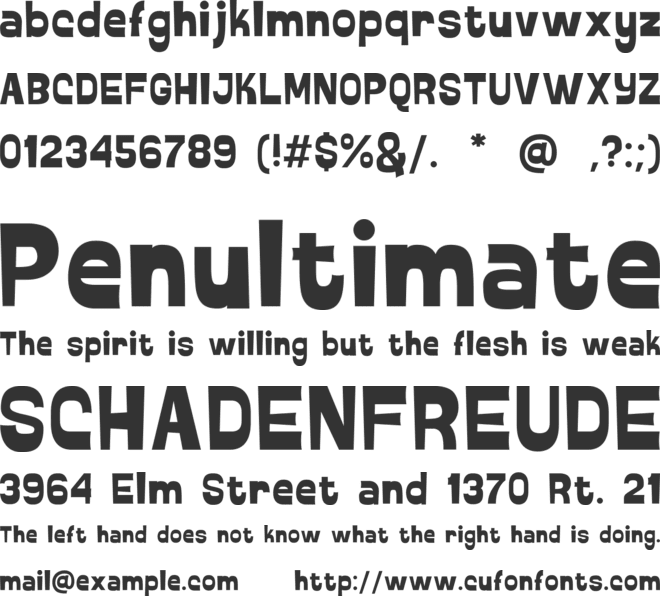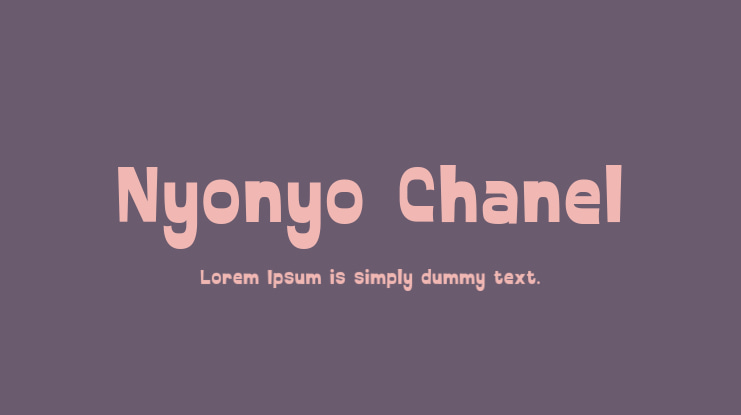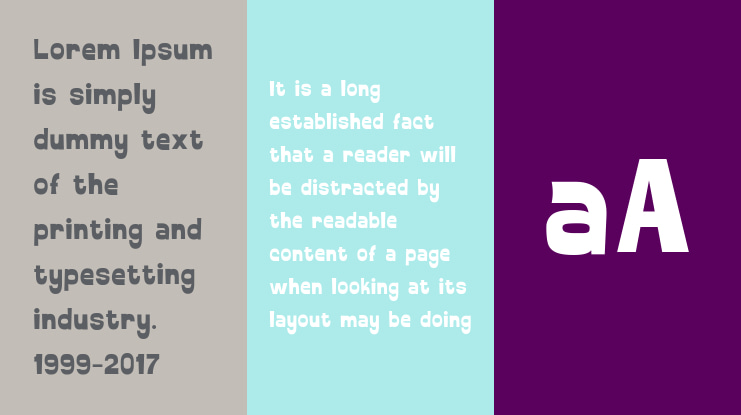
Nyonyo Chanel Font
Nyonyo Chanel Typeface Introducing Nyonyo Chanel Typeface: Unleash Your Creativity with a Groovy Twist!
Dive into a world of vibrant expression with the Nyonyo Chanel Typeface, a one-of-a-kind groovy display font that redefines the art of typography. Perfectly blending retro vibes with modern flair, this font is your go-to choice for creating eye-catching designs that captivate and inspire.